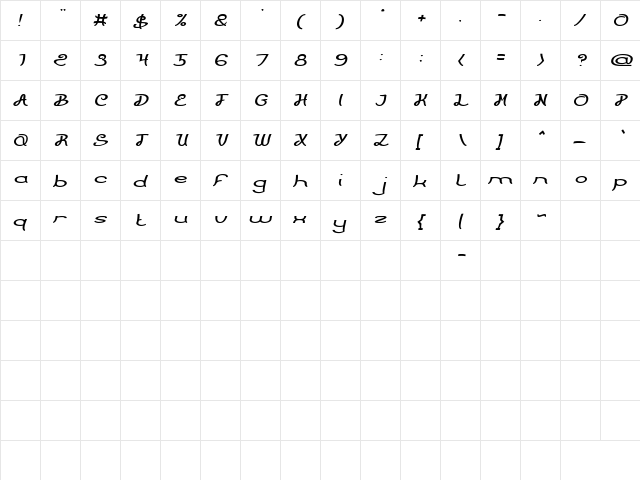
PRIMITIVE HEART Italic
Design Context for PRIMITIVE HEART Typeface
PRIMITIVE HEART is a composed and adaptable typeface that performs quietly and consistently across a wide range of design contexts. Its italic angle brings a sense of urgency and motion to the letterforms.
Pro Tip: Use PRIMITIVE HEART for emphasis, pull quotes, and subheadings where its slanted energy can add rhythm to the layout.